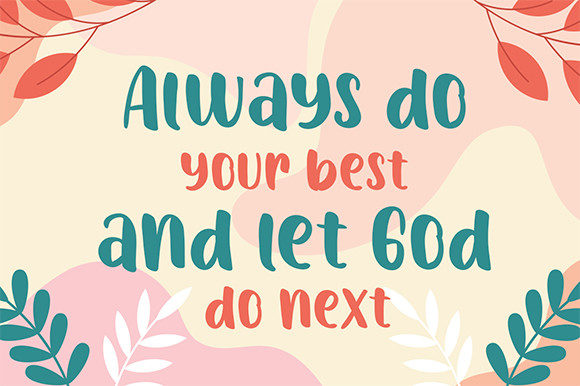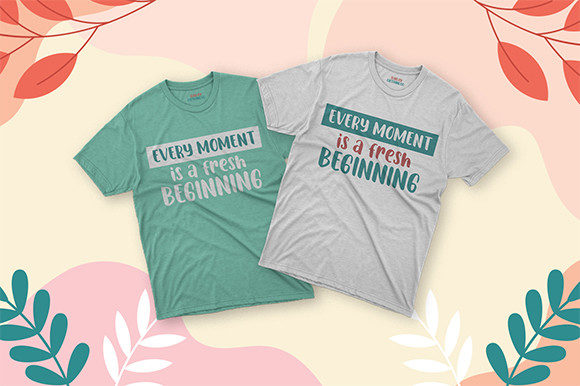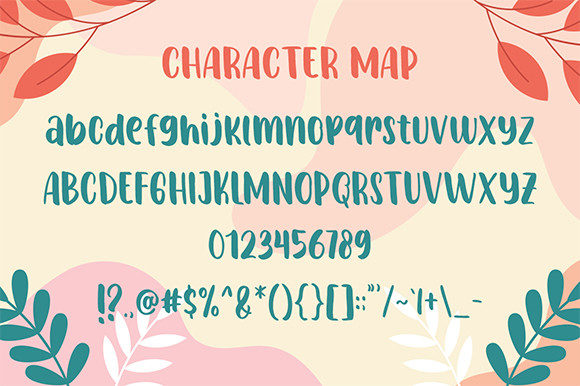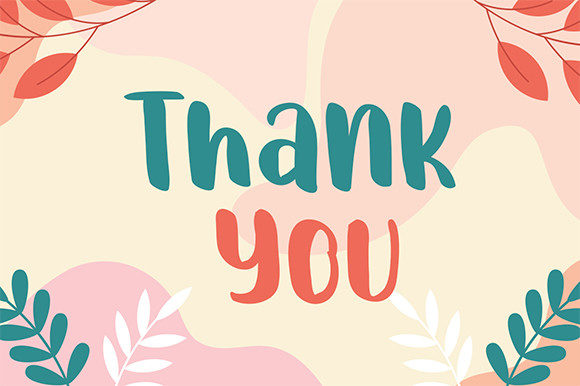
Introduction to Daily Sunday Font
Daily Sunday is a fun and child-themed display font.
It will add a friendly and quirky feel to any design project This font is suitable to be used on kids, books, logos, magazines, quotes, birthday cards, watermarks, invitations and more.
Key Features of Daily Sunday Font
Why Choose Daily Sunday Font?